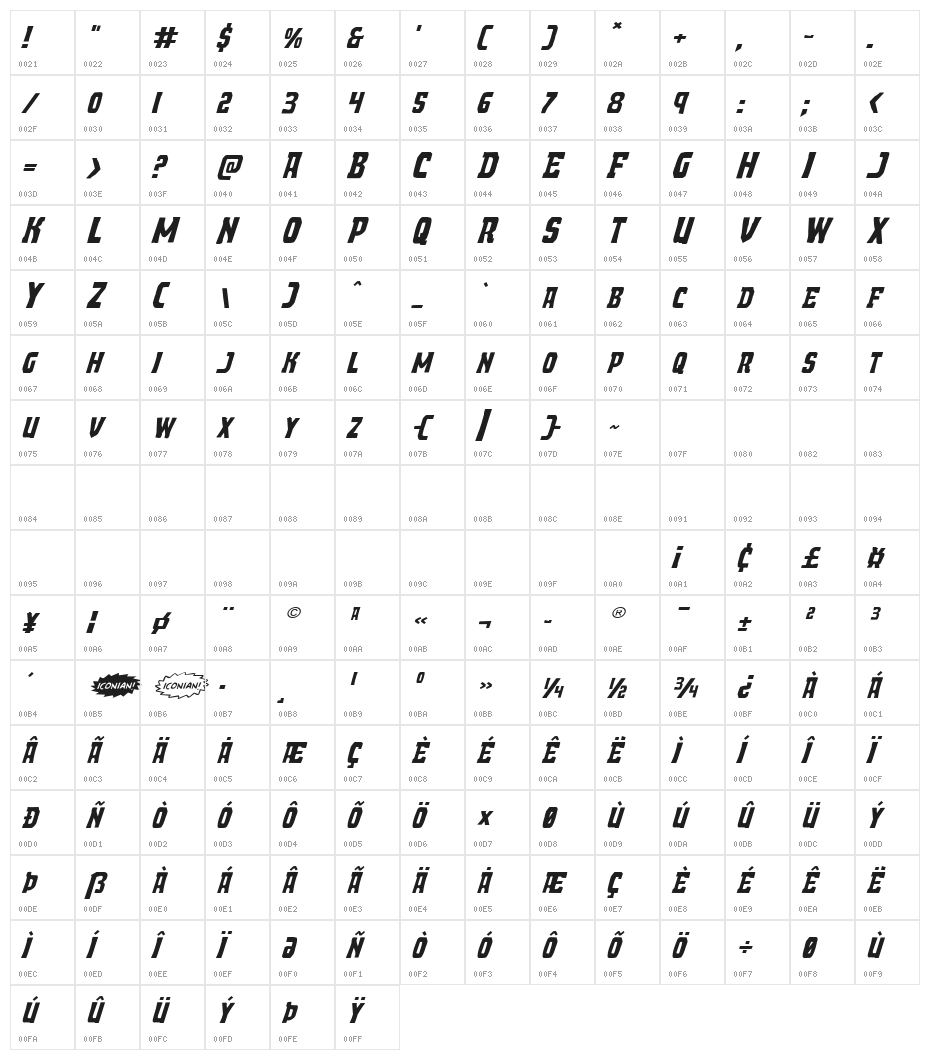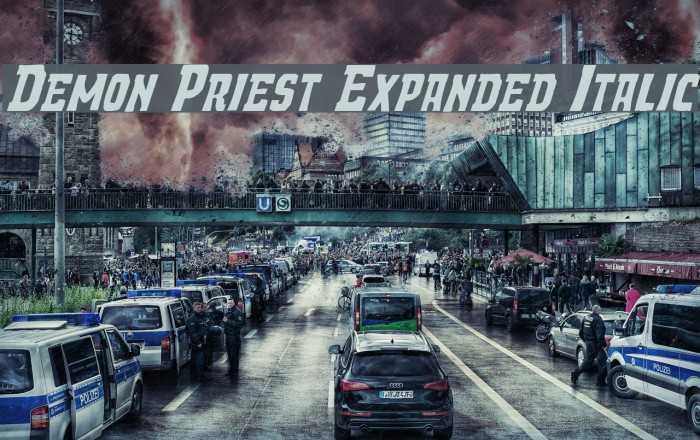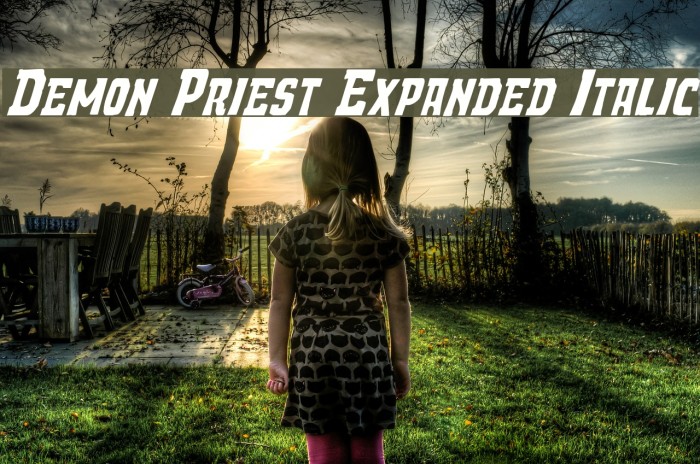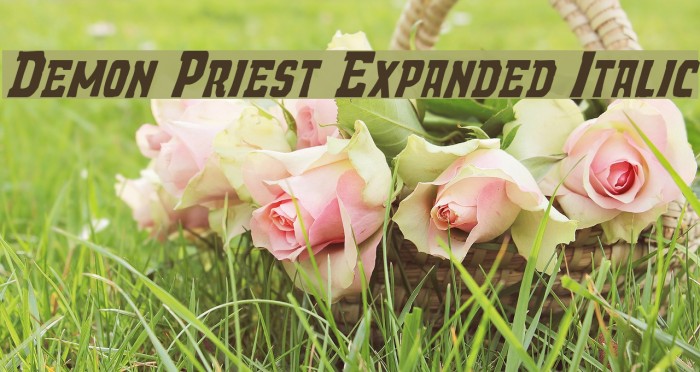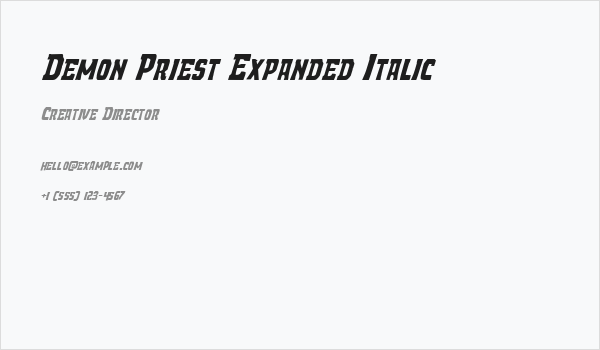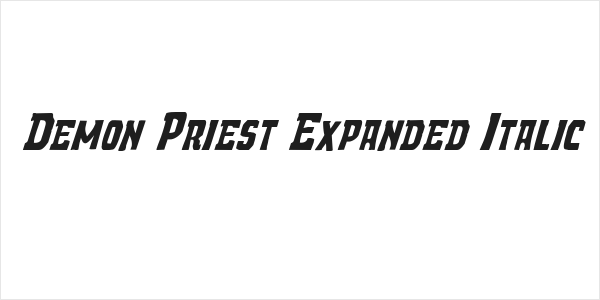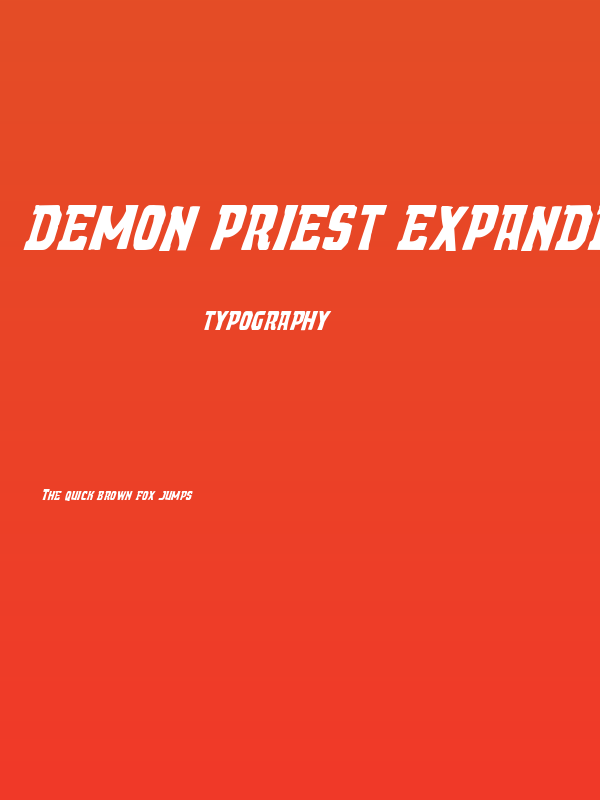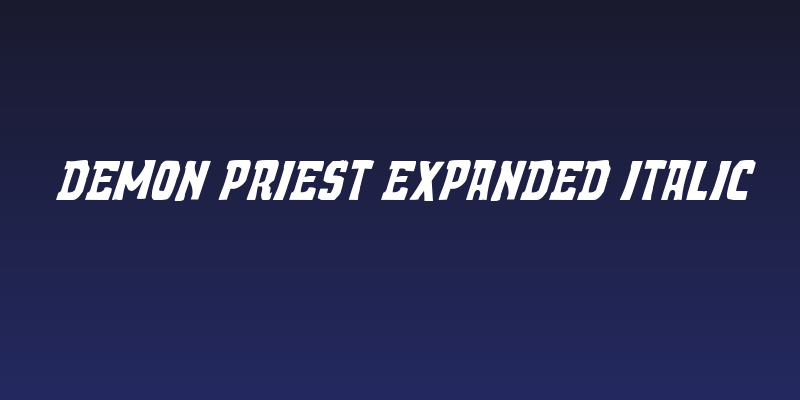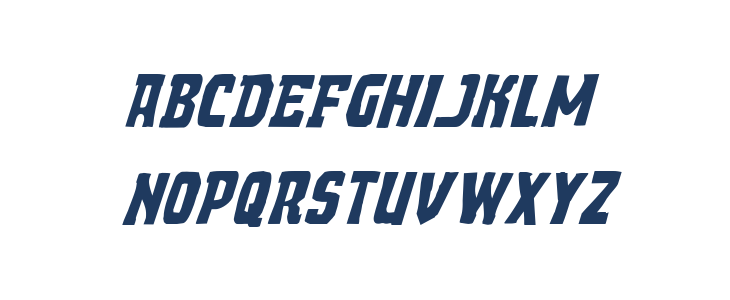
Demon Priest Expanded Italic Font
Demon Priest Expanded Italic Description
This font features a bold and dynamic style with an expanded and italicized form. The characters are robust and angular, giving a sense of movement and energy. The uppercase and lowercase letters maintain a consistent slant, enhancing the italic effect. The numbers and special characters are equally bold, ensuring uniformity across all glyphs. The font's design is striking and attention-grabbing, making it suitable for impactful headlines or branding that requires a strong visual presence.
Proposed ProjectsIdeal for use in branding, posters, and headlines that require a bold and dynamic presence.